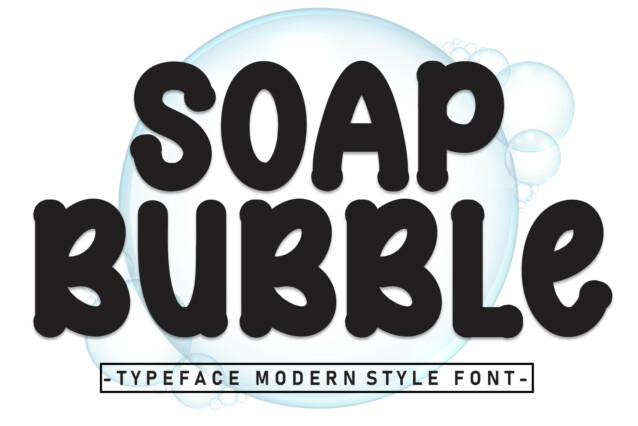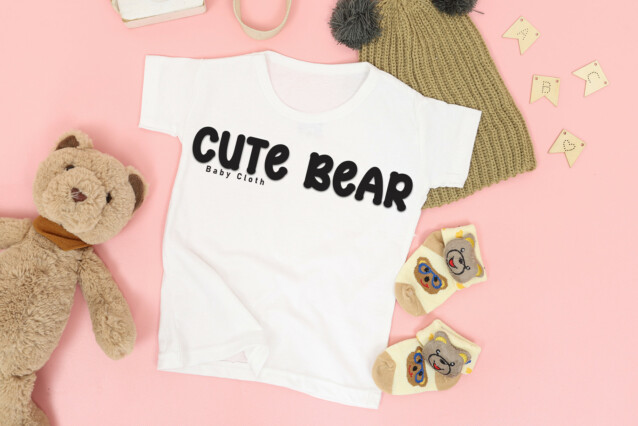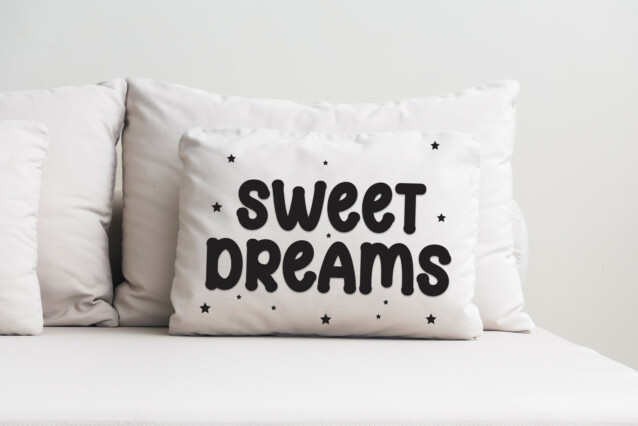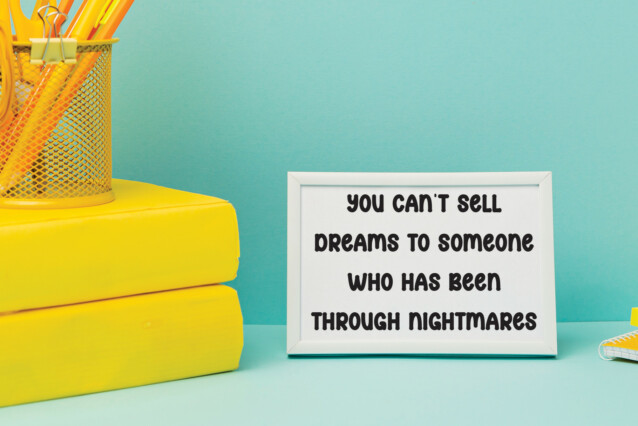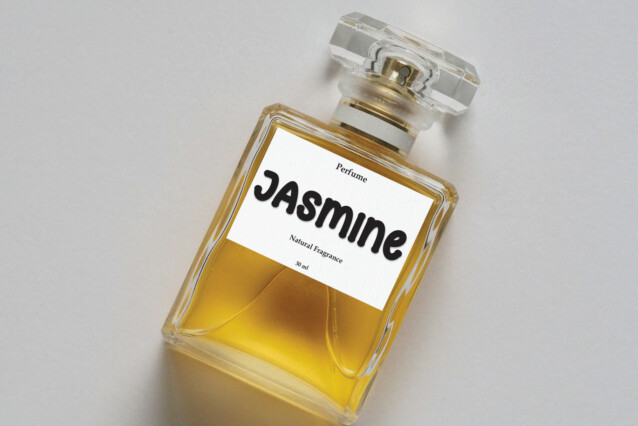
Soap Bubble Display Typeface
Soap Bubble Display Typeface is a sweet and friendly handwritten display font. Cute and fun, this font is ideal for writing wedding invitations, cards, or any other design that might need a playful touch!